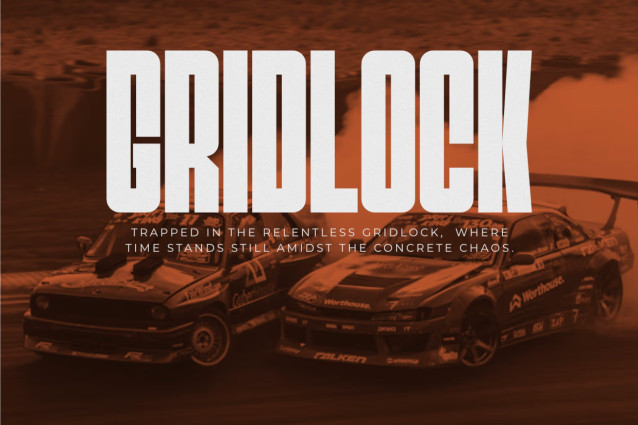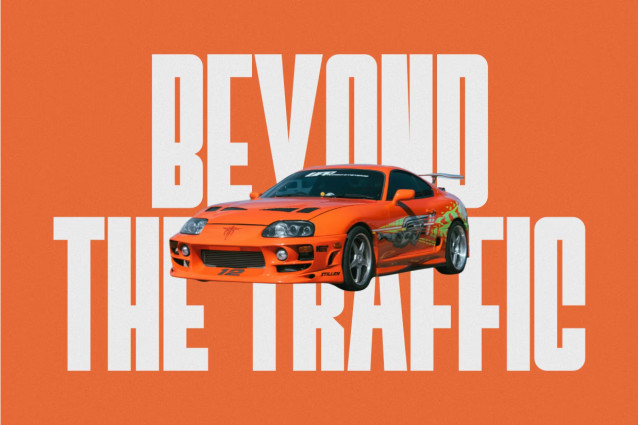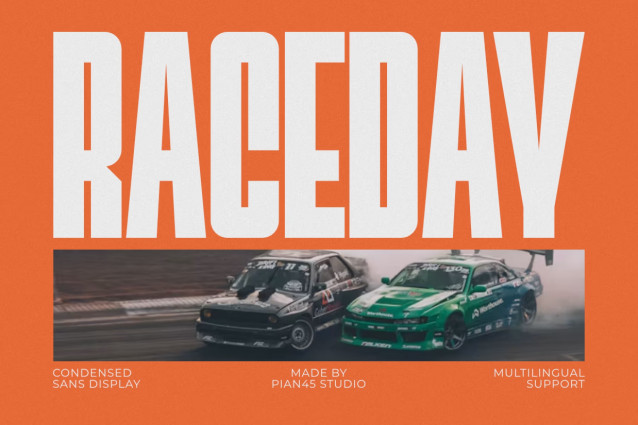
Raceday is a high-speed, high-impact Modern Condensed Sans Display font engineered to capture raw velocity, athletic momentum, and motorsport energy. Built with tall, commanding vertical proportions, sleek chamfered angles, and a space-saving condensed typeface structure with full multilingual support, this all-caps font is the ultimate choice for racing branding, automotive team logos, drift event apparel, esports graphics, and urban streetwear lines. Its massive visual weight and aggressive geometric lines guarantee maximum legibility in tight layouts, making it ideal for high-visibility headlines, tournament posters, custom merchandise, and digital marketing banners.